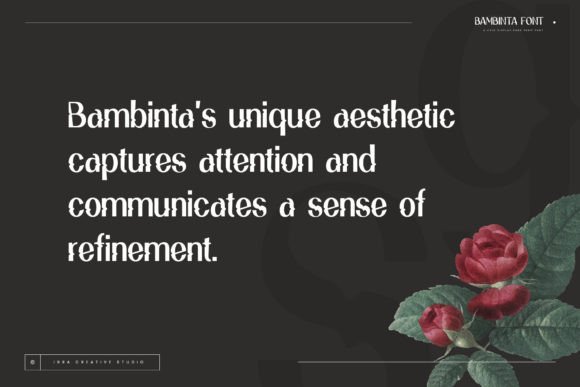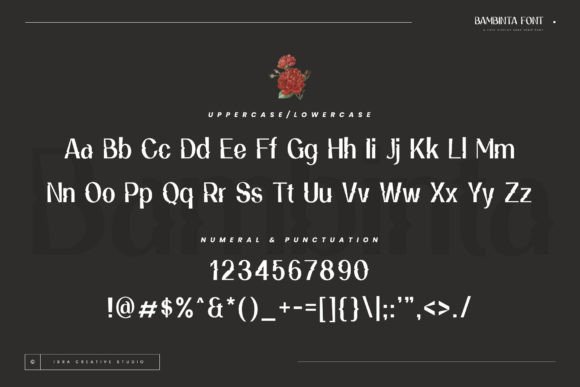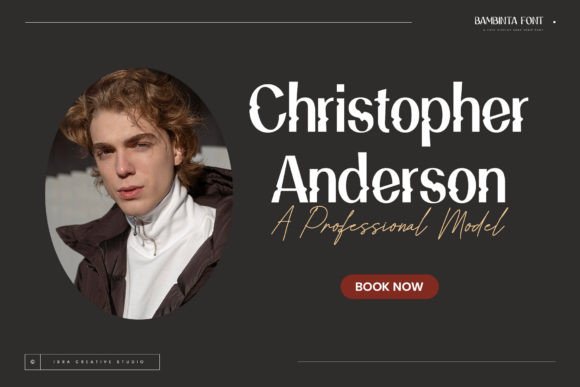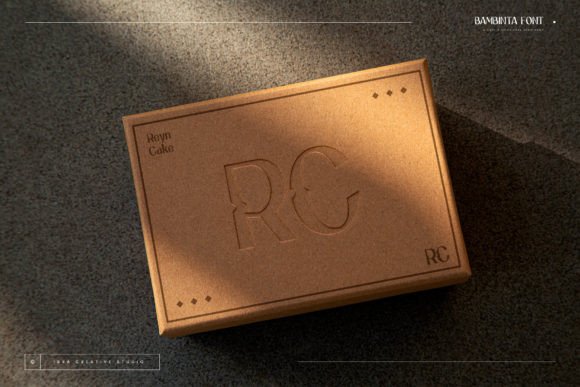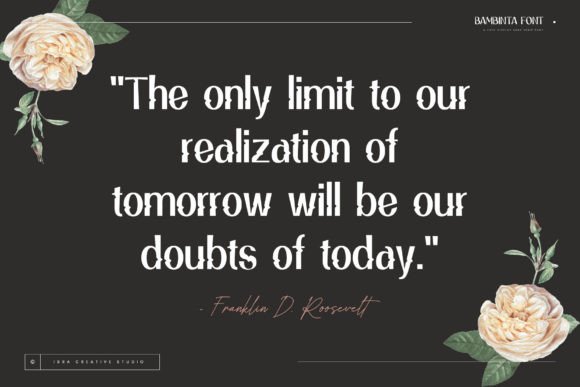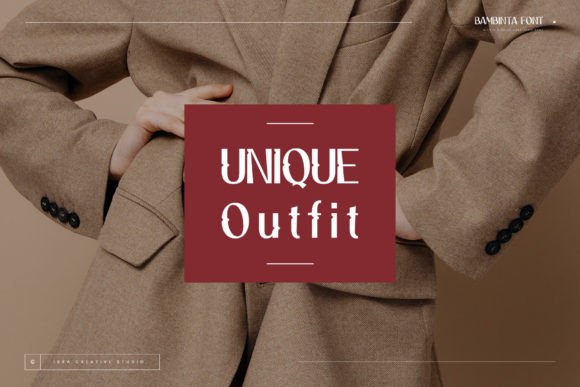
Bambinta Font: Elevate Your Designs with Timeless Elegance
In the realm of typography, few fonts manage to strike a perfect balance between sophistication and modernity. Bambinta, a chic display sans-serif font, is one such exceptional typeface that effortlessly combines clean lines, geometric shapes, and well-balanced proportions to exude a timeless elegance. This versatile font is an ideal choice for contemporary design projects, offering a distinct flair that enhances visual appeal across various applications.
The Essence of Bambinta
Bambinta’s design is rooted in simplicity and elegance. Its sans-serif structure provides a clean and minimalist aesthetic, while its geometric shapes add a touch of sophistication. The font’s characters are meticulously crafted to ensure a perfect balance between simplicity and stylish flair. This balance makes Bambinta highly versatile, suitable for a wide range of design applications including branding, editorial design, signage, and more.
Key Features of Bambinta
- Clean Lines and Geometric Shapes: Bambinta’s design is characterized by its clean lines and geometric shapes, which contribute to its modern and sophisticated look.
- Well-Balanced Proportions: The font’s well-balanced proportions ensure that it remains legible and aesthetically pleasing, whether used in headings or body text.
- Distinct Characters: Bambinta’s characters have a unique flair that sets them apart from more generic sans-serif fonts. This distinctiveness adds a touch of elegance and sophistication to any design.
- Versatility: Due to its design characteristics, Bambinta can be used across various mediums, from digital platforms to print materials, making it a valuable asset for any designer.
Applications of Bambinta
Bambinta’s versatility is one of its most compelling attributes. Here are some of the key areas where Bambinta can make a significant impact:
- Branding: For businesses looking to establish a modern yet sophisticated brand identity, Bambinta can be used in logos, marketing materials, and website design to create a cohesive and elegant brand image.
- Editorial Design: In magazines, newspapers, and digital publications, Bambinta can be used for headlines and titles to grab attention and add a touch of sophistication.
- Signage: For both indoor and outdoor signage, Bambinta’s clear and elegant design ensures that messages are conveyed effectively and stylishly.
- Digital Media: In digital design, Bambinta can enhance the visual appeal of websites, apps, and social media graphics, providing a modern and engaging user experience.
Why Choose Bambinta?
In a world where design trends are constantly evolving, Bambinta stands out as a timeless choice that can elevate any design project. Its unique blend of modernity and elegance ensures that it remains relevant across different design contexts. Here are a few reasons why designers and crafters might prefer Bambinta:
- Timeless Appeal: Unlike trend-specific fonts that may quickly become outdated, Bambinta’s classic design ensures it remains stylish and relevant.
- Versatility: Bambinta’s adaptability across various design applications makes it a practical choice for designers who work on a wide range of projects.
- Elegance and Sophistication: For projects that require a touch of elegance and sophistication, Bambinta provides a reliable and stylish solution.
Bambinta is more than just a font; it’s a design statement. Its unique combination of clean lines, geometric shapes, and elegant flair makes it an exceptional choice for designers and crafters looking to add a touch of sophistication to their projects. Whether you’re working on branding, editorial design, signage, or digital media, Bambinta offers a versatile and stylish solution that can elevate your designs to new heights. Embrace the timeless elegance of Bambinta and discover how it can transform your design projects into visually stunning works of art.